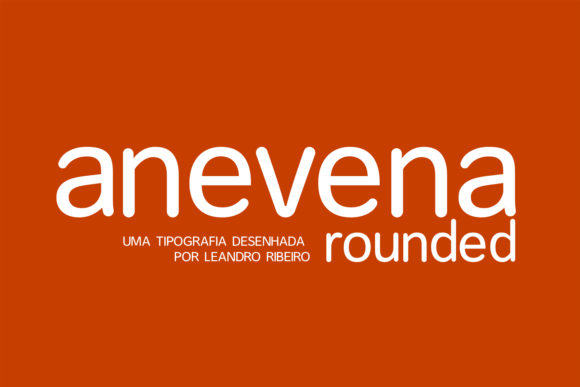
Introducing Anevena Rounded, the Exquisite Sans Serif Font That Will Captivate Your Senses and Elevate Your Designs.
Step into a world of elegance and creativity with Anevena Rounded, a stunning sans serif font that exudes sophistication and versatility. Its meticulously crafted curves and clean lines create a visual harmony that dances across the page, leaving an indelible impression on your audience. Whether you seek to craft captivating food advertisements, design eye-catching posters, or compose professional business reports, Anevena Rounded is your perfect companion.
Anevena Rounded's inherent charm lies in its versatility, effortlessly adapting to a myriad of design aspirations. Its crisp and legible structure makes it an ideal choice for book texts, documentation, and business correspondence, ensuring clarity and readability in every context. Unleash your imagination and weave captivating headlines, design brochures that command attention, and create multimedia presentations that leave a lasting impact. The possibilities are endless with Anevena Rounded.
Immerse yourself in the world of Anevena Rounded, where creativity knows no bounds. Its graceful curves and dynamic strokes ignite a symphony of emotions, captivating your audience and leaving them yearning for more. Allow Anevena Rounded to take your designs to new heights, transforming ordinary words into captivating expressions that resonate with your audience. With Anevena Rounded, your designs will transcend the mundane and enter the realm of the extraordinary.